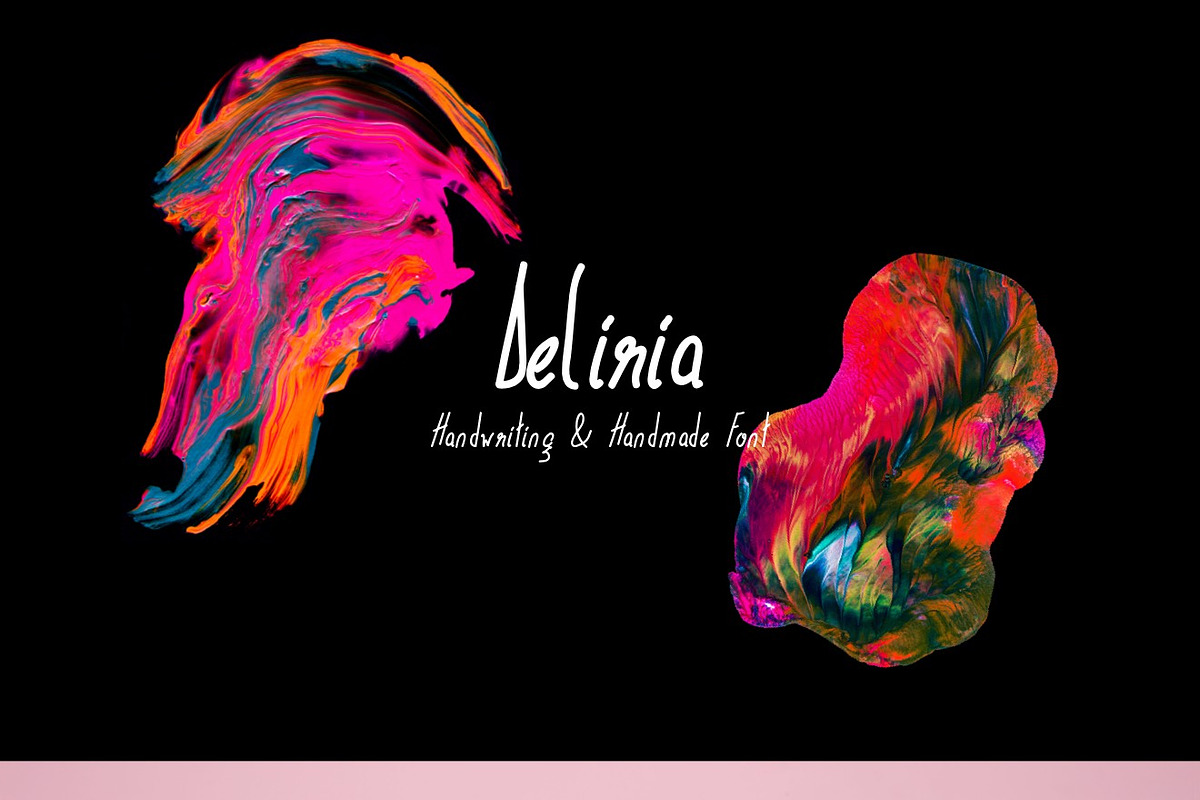
Deliria Handwriting Font
Deliria Handwriting Font by Designerbundle is a font selected for branding, posters, packaging, typography.
- A marvelous hand writing font containing upper & lowercase characters, numerals and a large range of punctuation to help you make beautiful
Why Deliria Handwriting Font is worth a look
Deliria Handwriting Font by Designerbundle fits naturally into Branding, posters, packaging, typography.